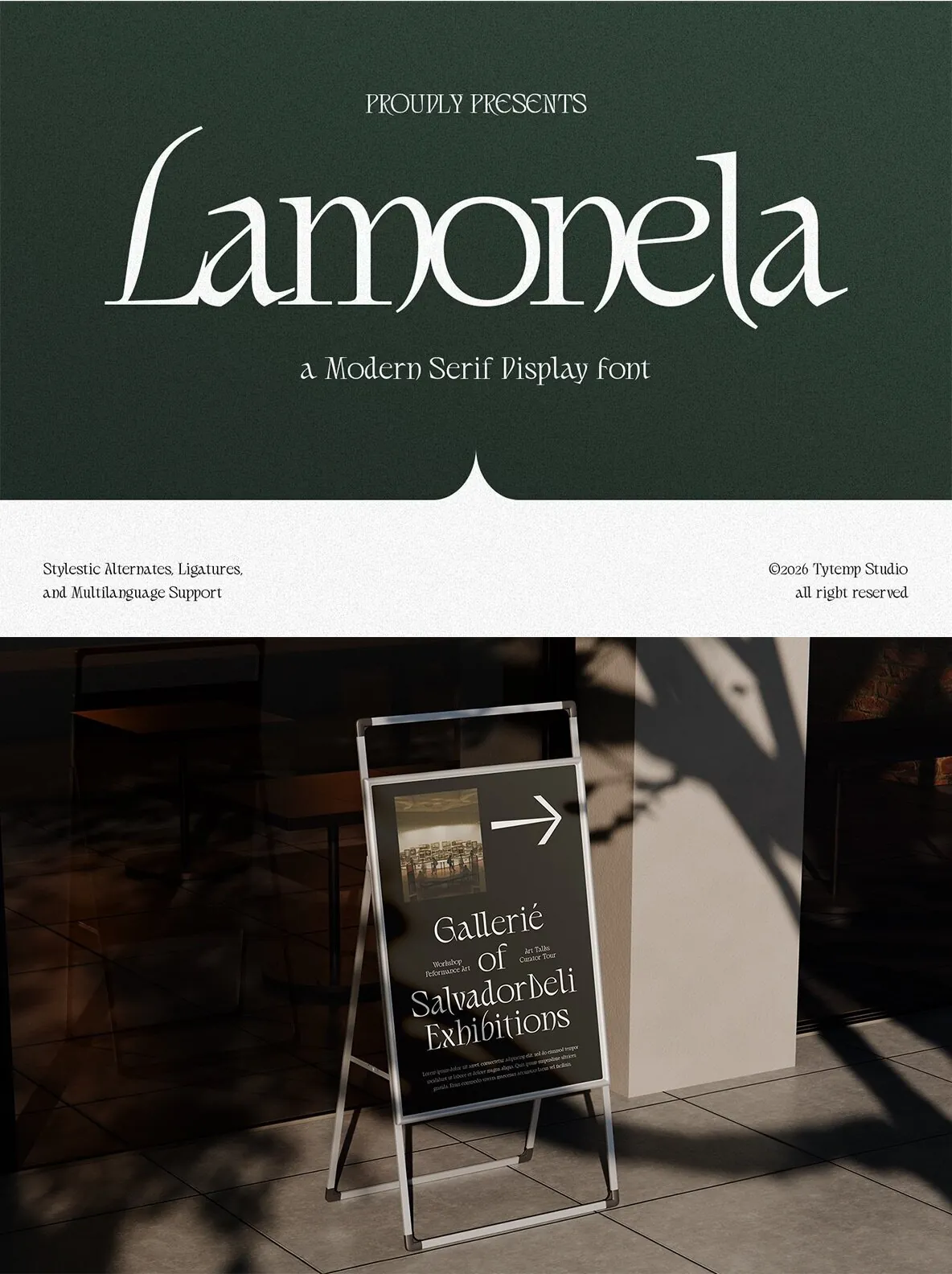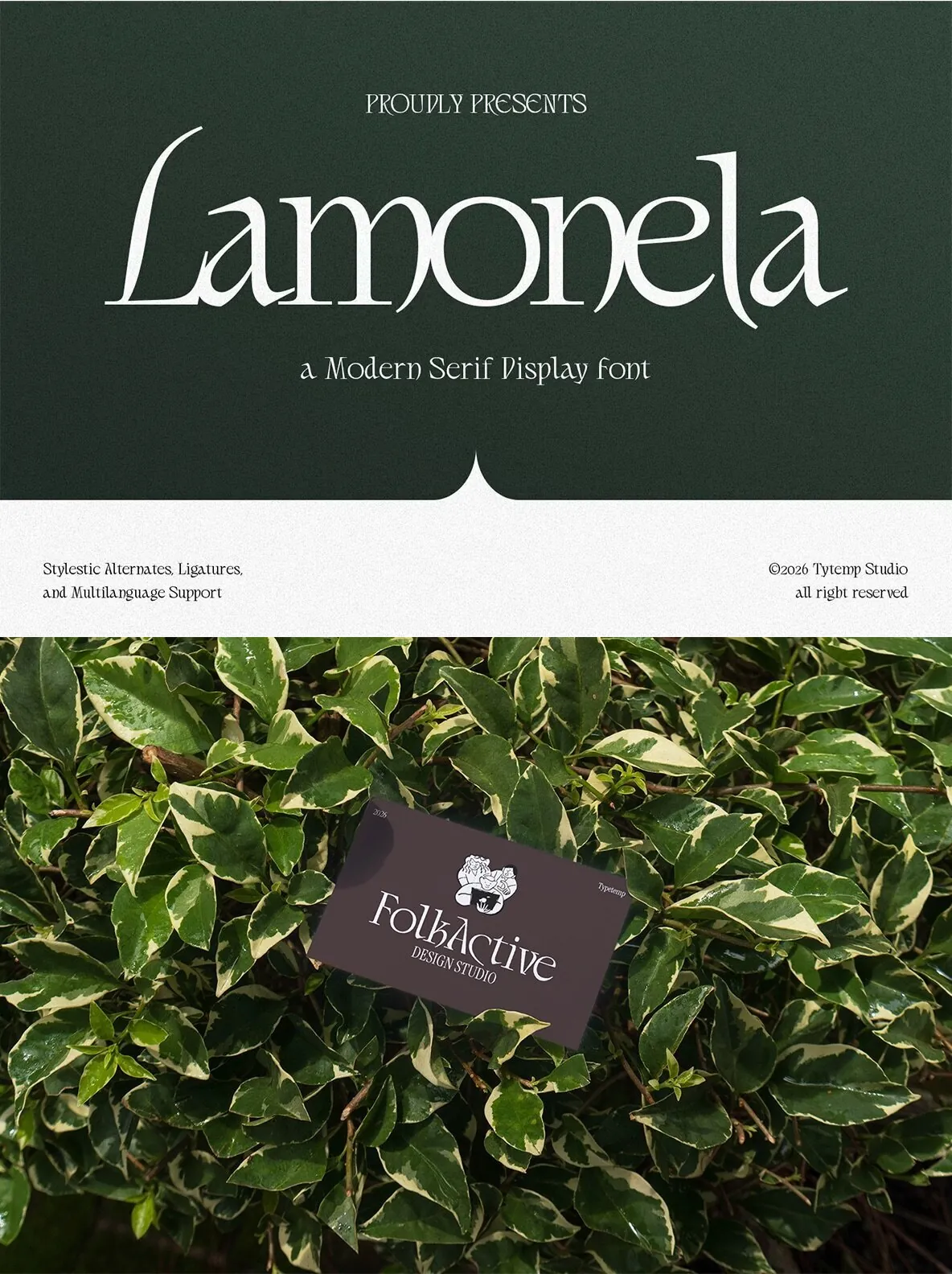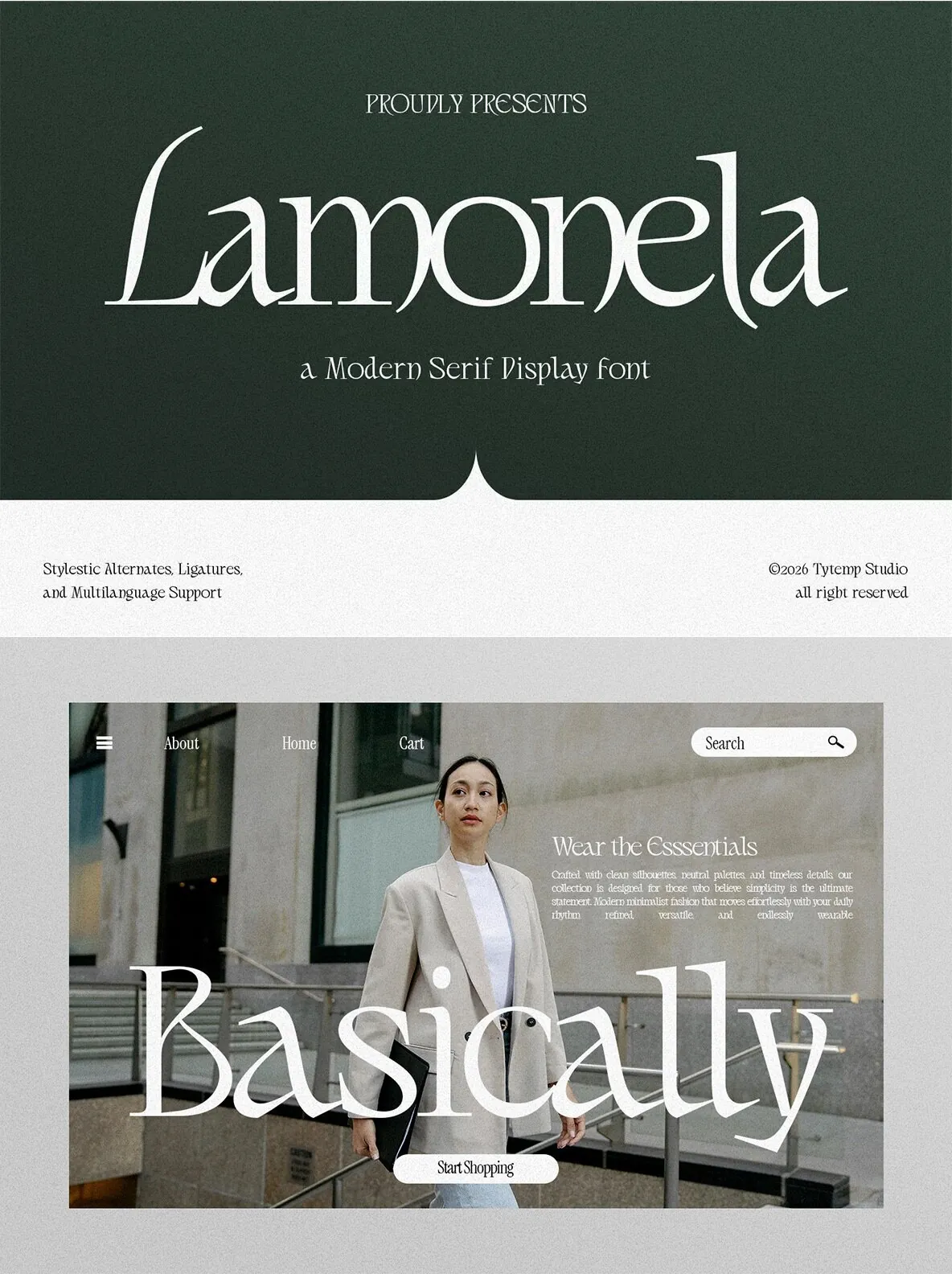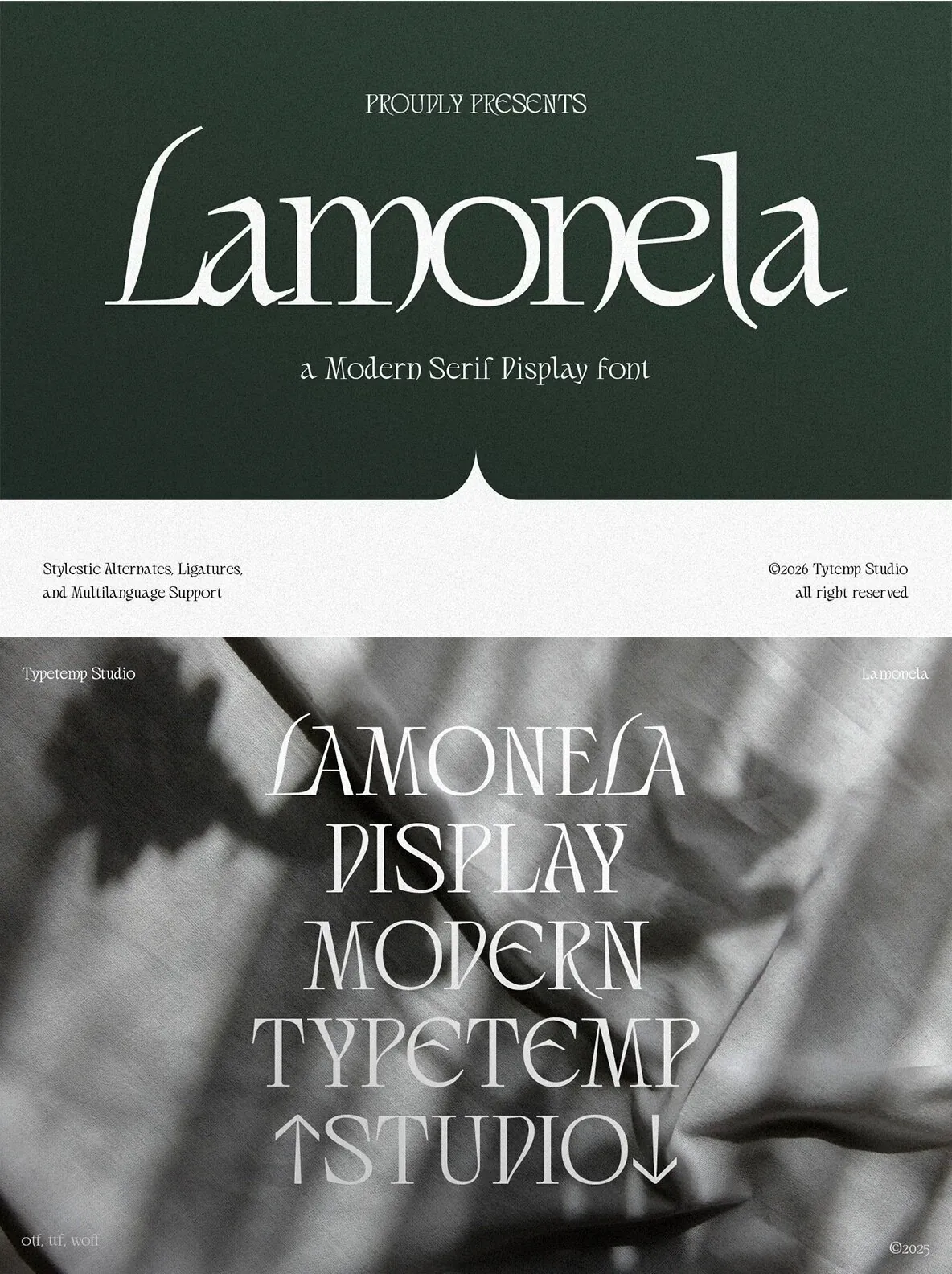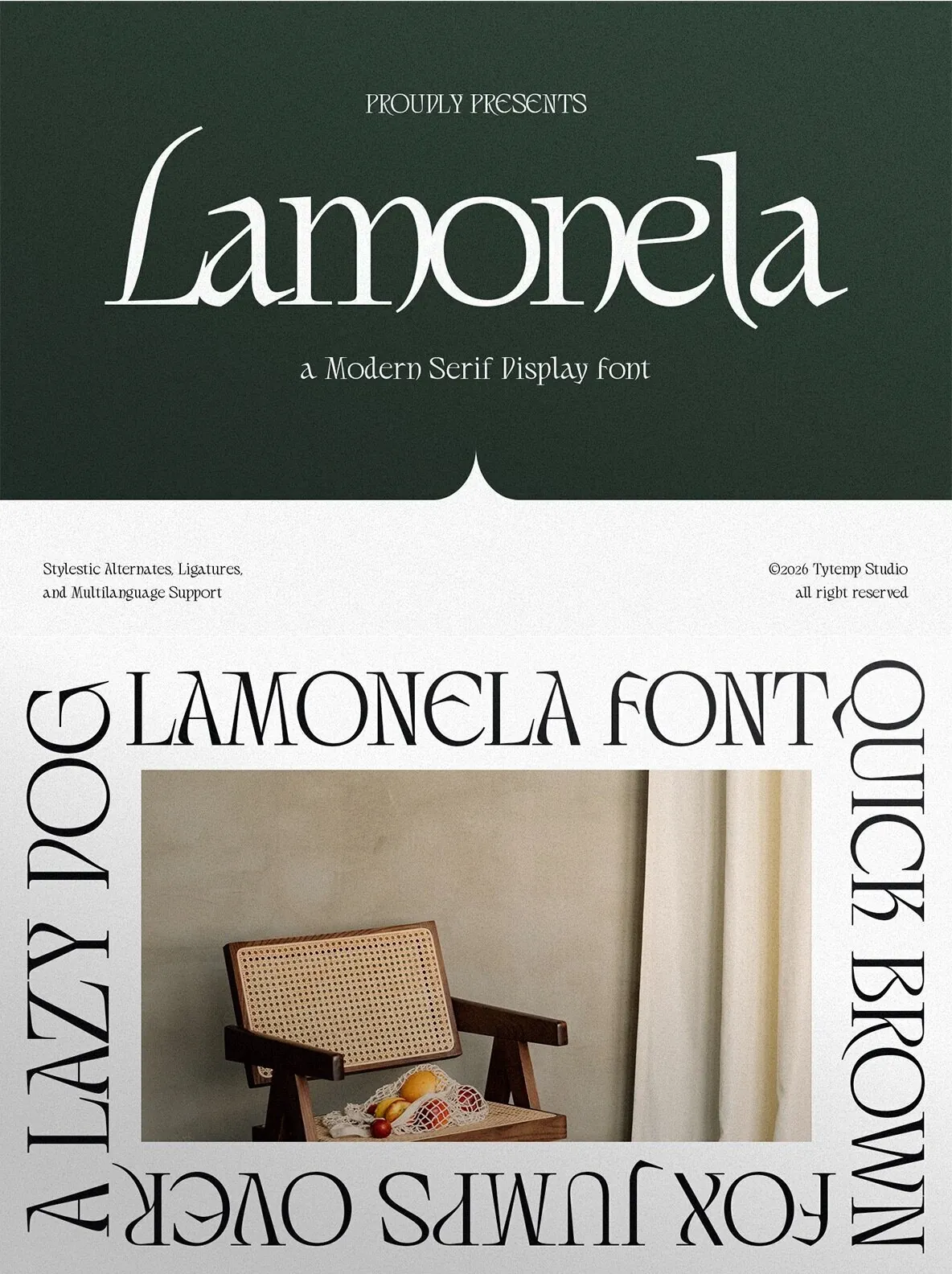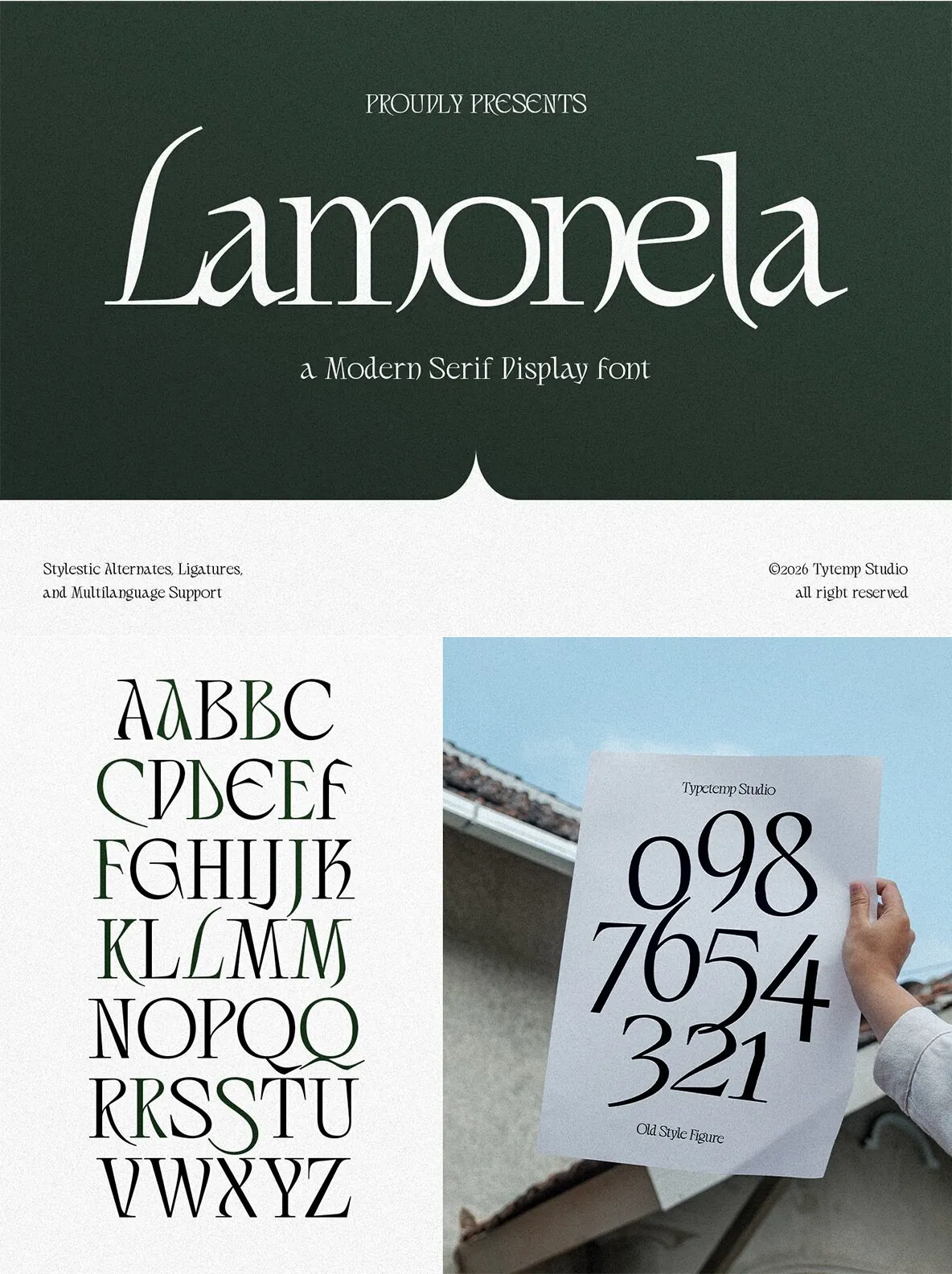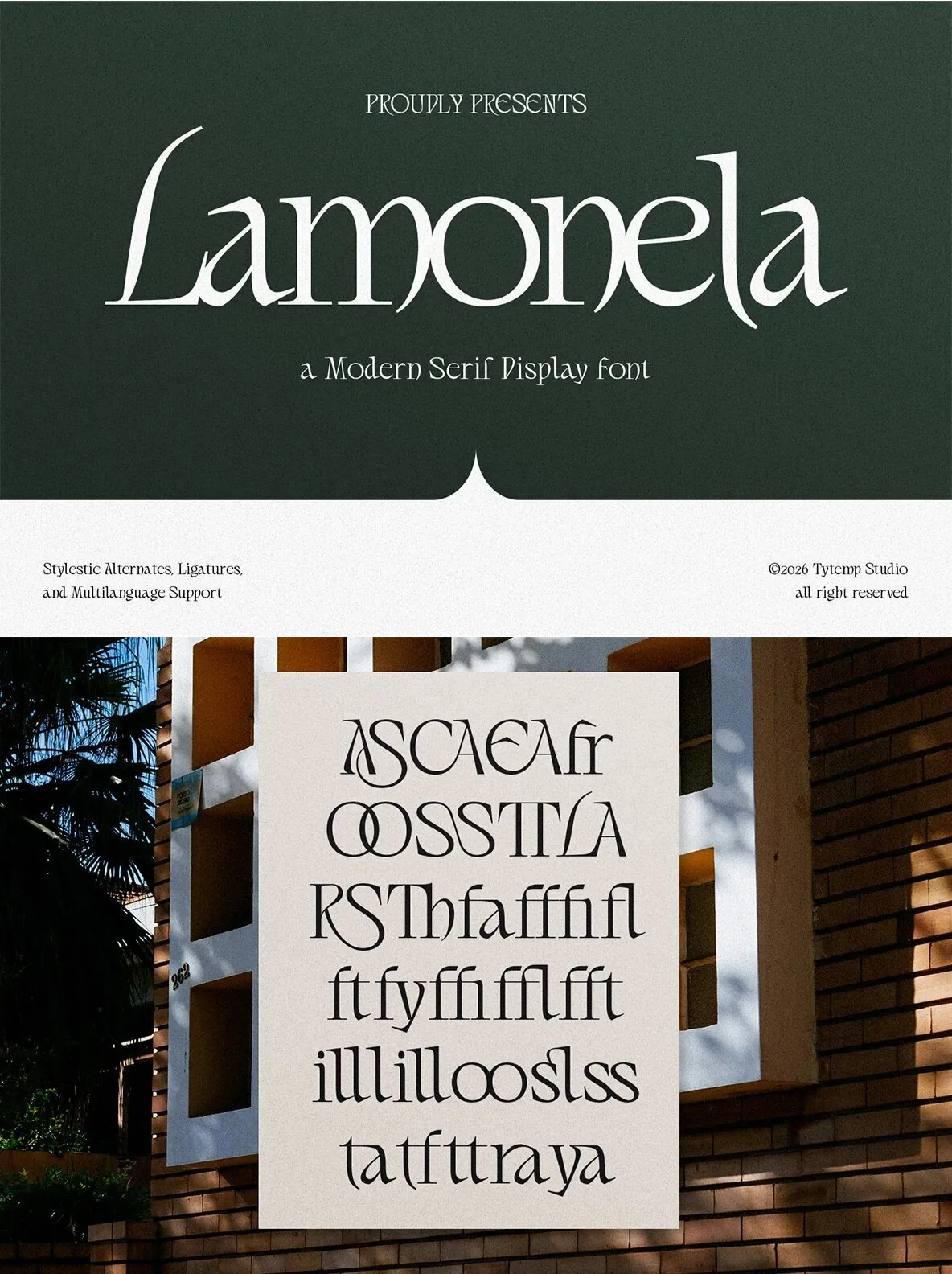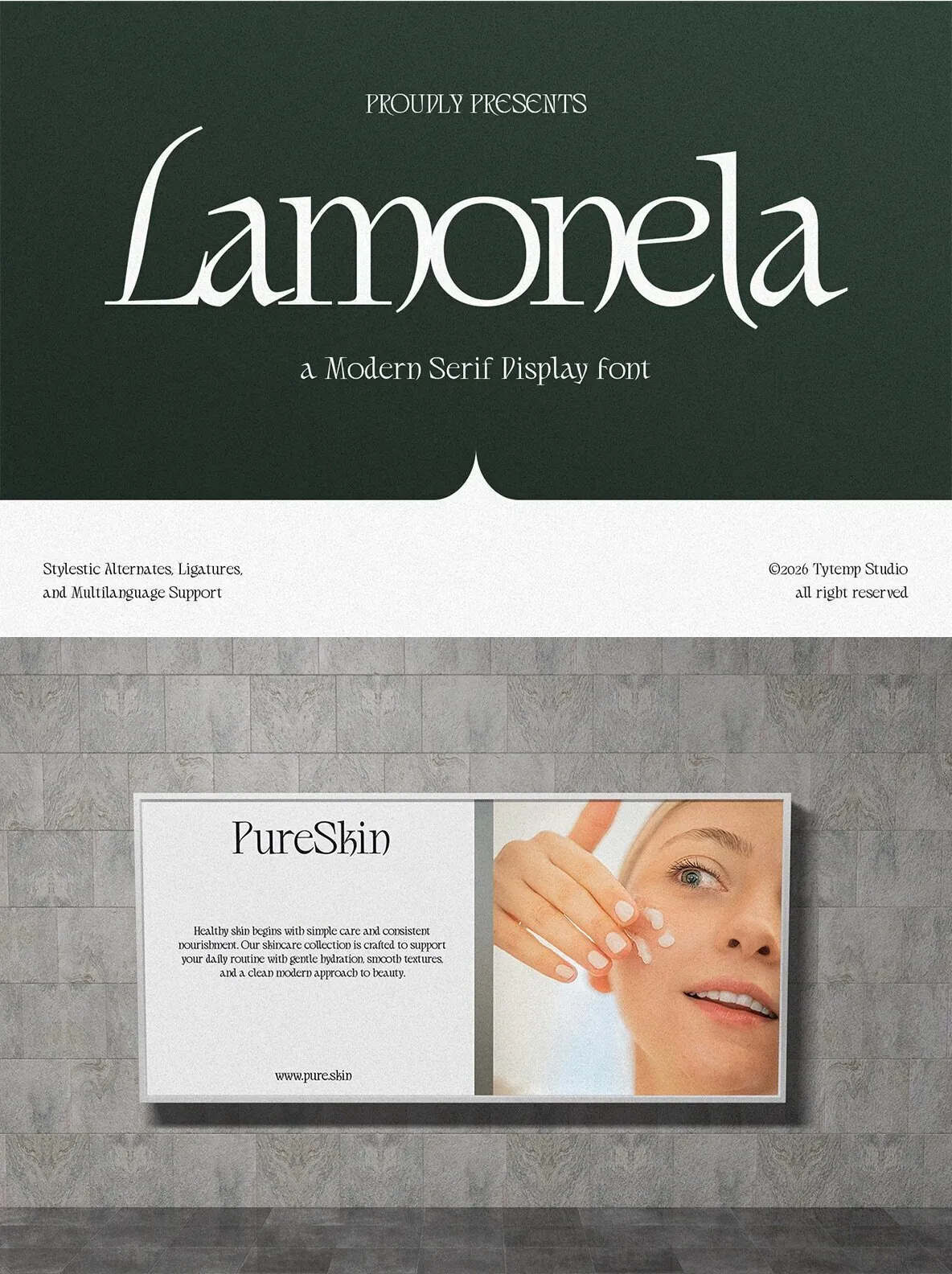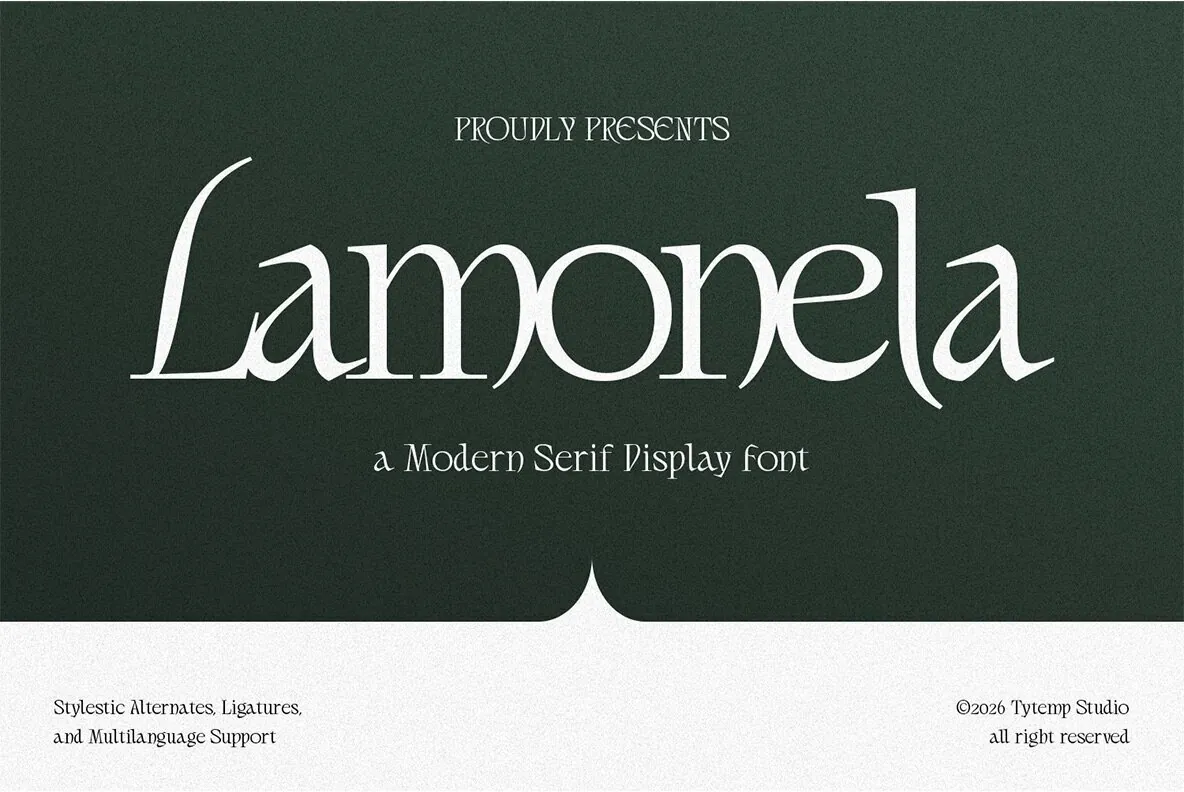
Lamonela — Elegance in Display
Lamonela is a modern serif display font that blends timeless elegance with contemporary sophistication. High-contrast strokes, graceful curves, and refined ligatures give the typeface a luxurious, artistic visual identity with a polished editorial presence.
Its stylish letterforms create a romantic yet refined look for branding, fashion campaigns, beauty products, wedding invitations, magazine headlines, and premium logo designs. Delicate details and a minimalist aesthetic give Lamonela a classy, feminine, high-end appearance while maintaining excellent readability for display use.
Full multilingual character set
OpenType features such as ligatures and alternates